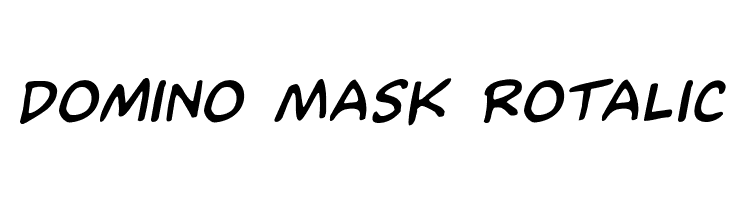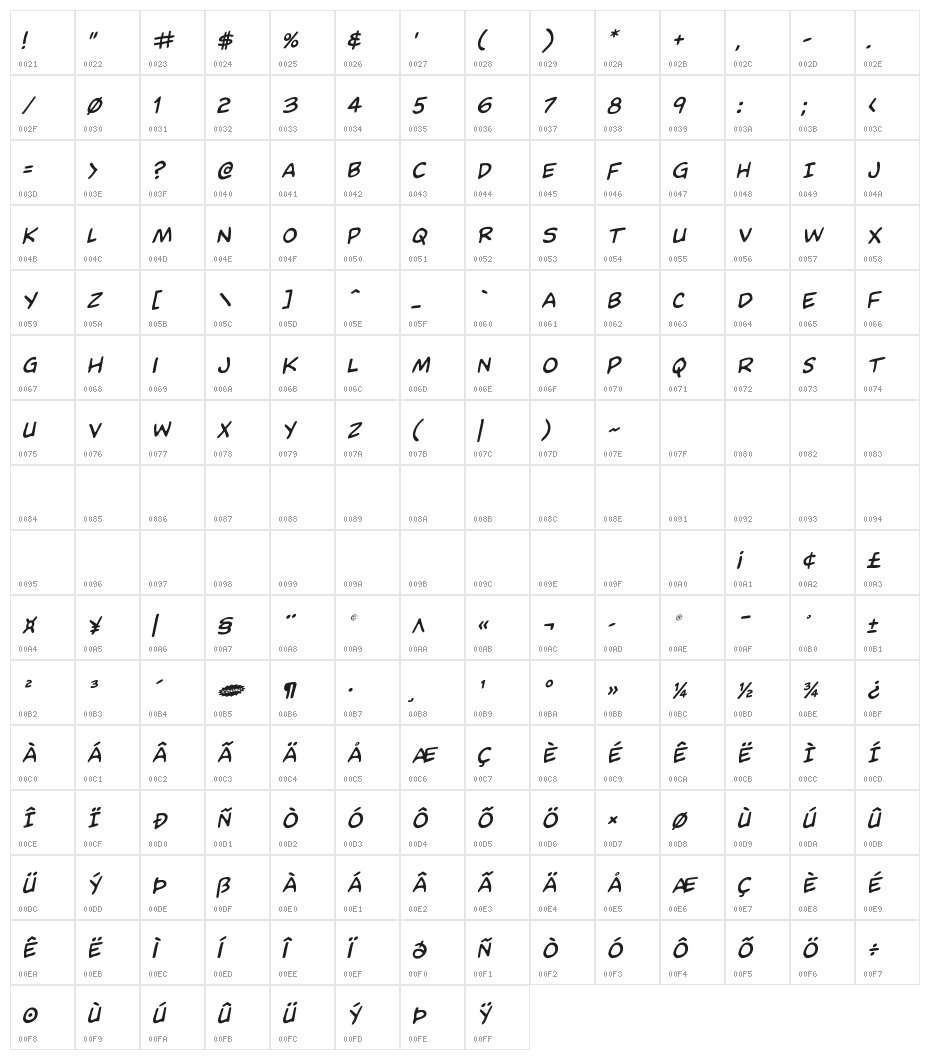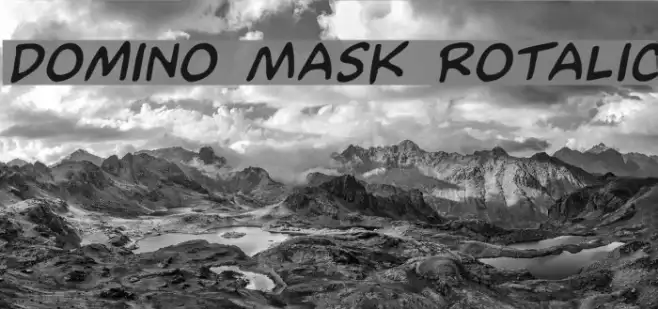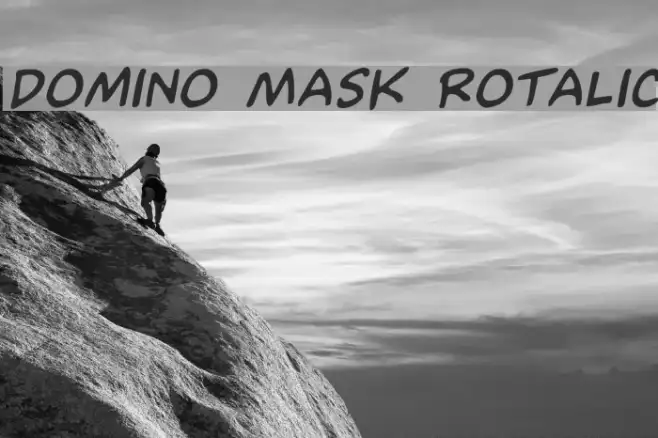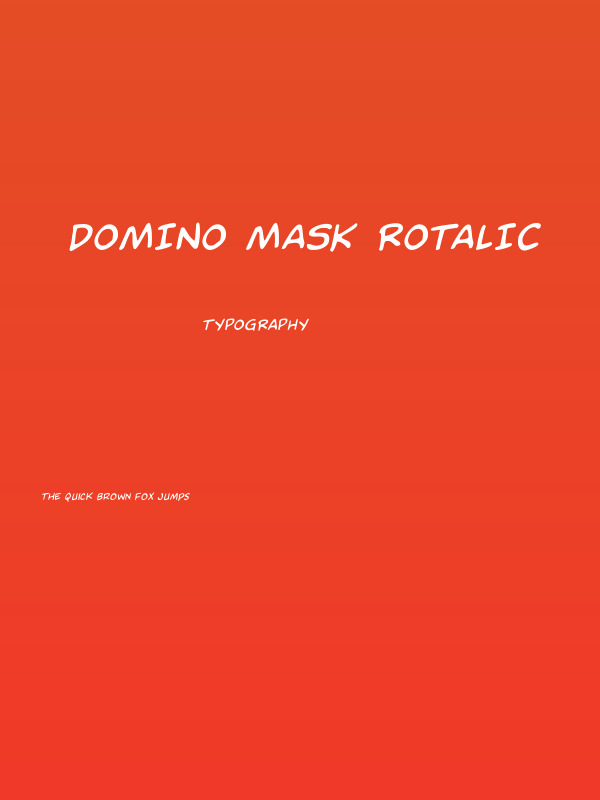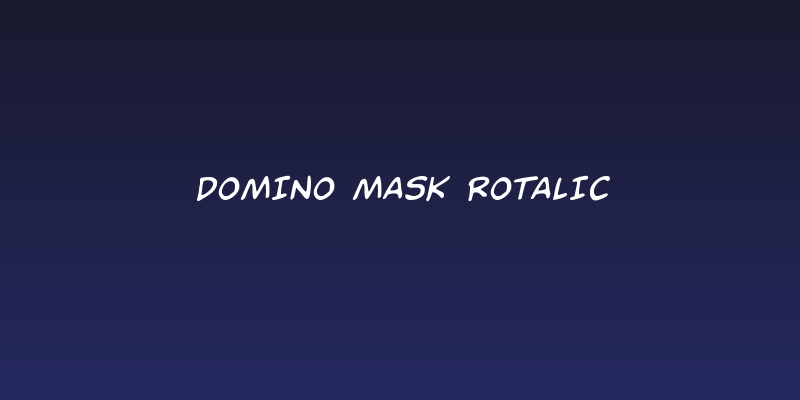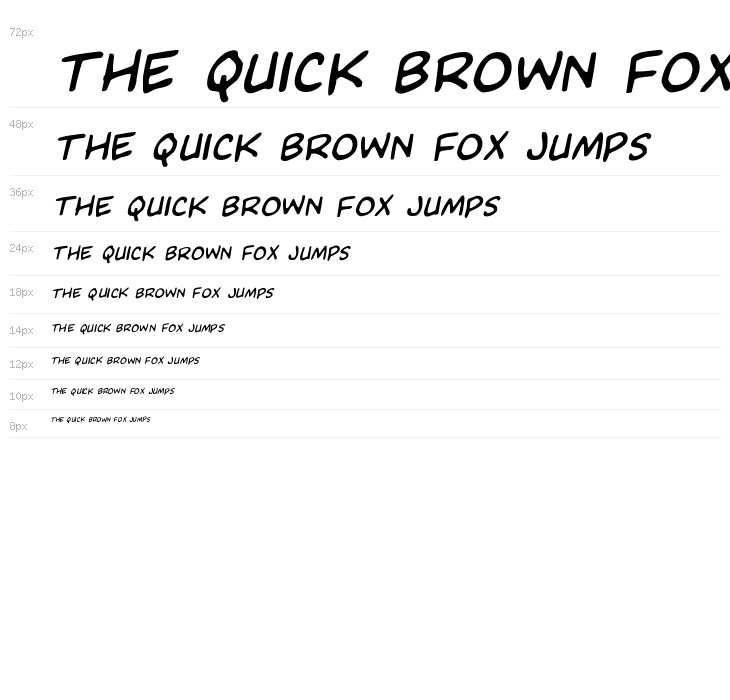
Domino Mask Rotalic Font
Domino Mask Rotalic Description
This font features a playful and dynamic handwritten style, characterized by its smooth, flowing curves and slightly slanted orientation. The letters have a casual, informal appearance, reminiscent of quick, expressive handwriting. The strokes are consistent in thickness, providing a uniform look across all characters. The font includes both uppercase and lowercase letters, numerals, and a variety of special characters, making it versatile for different design needs. Its energetic and friendly vibe makes it suitable for projects that require a personal touch.